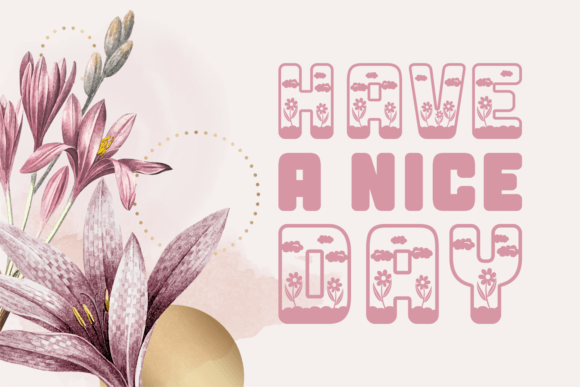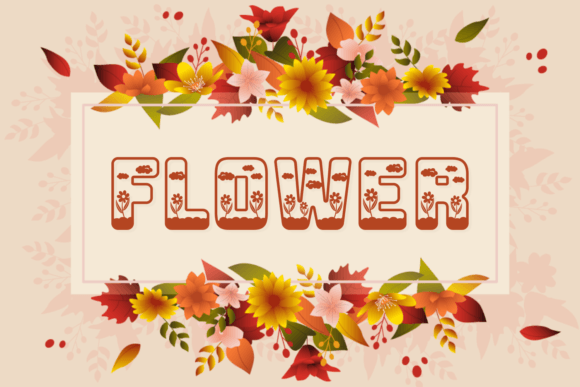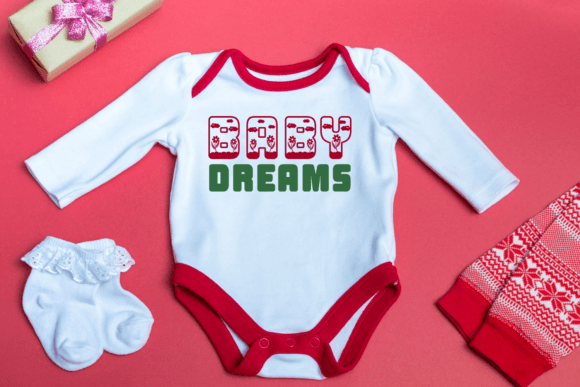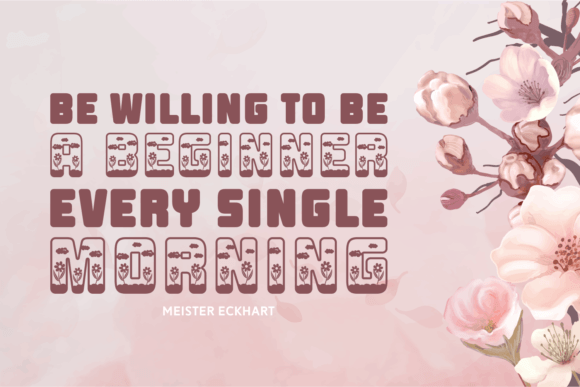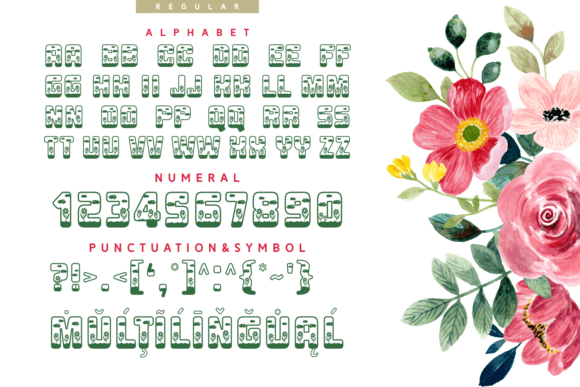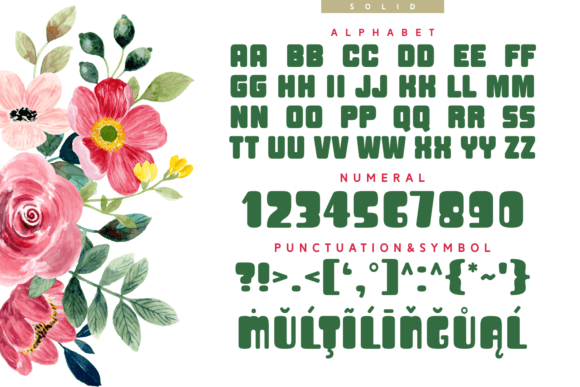
Introduction to Flodine Garden Solid Font
Flodine Garden Solid is a modern, elegant ornamental typeface that gives any product an attractive look thanks to its distinctive characters.
Use it for your most imaginative ideas involving branding, storybooks, wedding designs, clothing, and product packaging .
Key Features of Flodine Garden Solid Font
Why Choose Flodine Garden Solid Font?
Flodine Garden Solid Font offers exceptional quality and versatility, making it a valuable addition to your design toolkit. Whether you’re creating for personal projects or commercial use, Flodine Garden Solid Font delivers professional results.